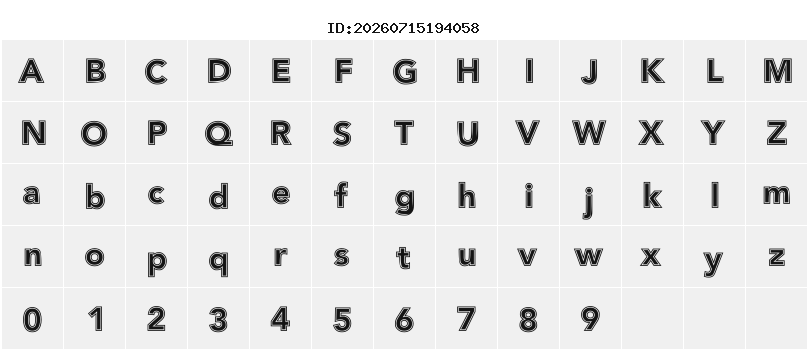
Avenir 95 Custom.Outerline Preview
• Font Name: Avenir 95 Custom.Outerline
• Full Font Name: Avenir 95 Custom.Outerline
About Avenir 95 Custom.Outerline.ttf
Avenir 95 Custom.Outerline.ttf is a modern, elegant sans-serif font designed for ultimate readability and visual harmony. Perfect for branding, headlines, web design, and print materials.